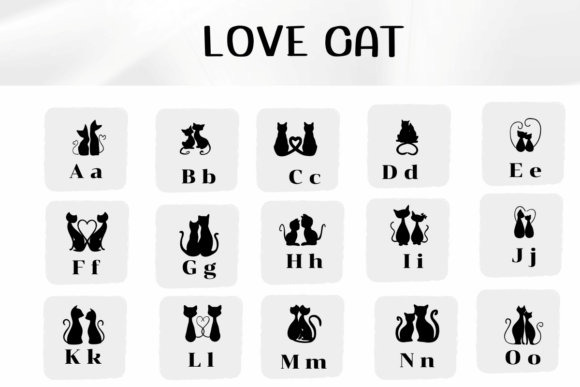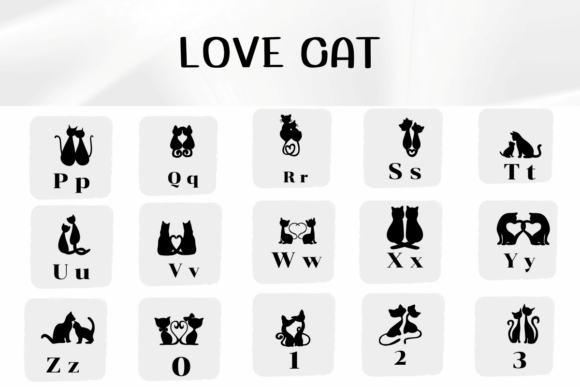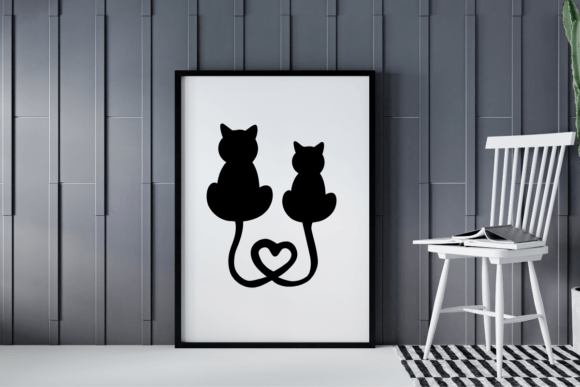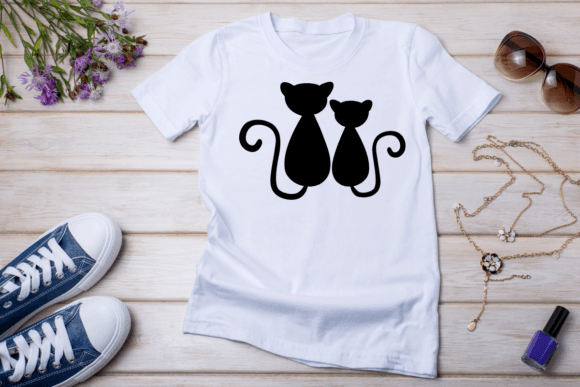
Love Cat Font
Love Cat is a cute dingbat font featuring adorable Valentine’s Day cat couples. The font includes sweet and playful designs of cats in love, perfect for adding charm to your romantic projects.